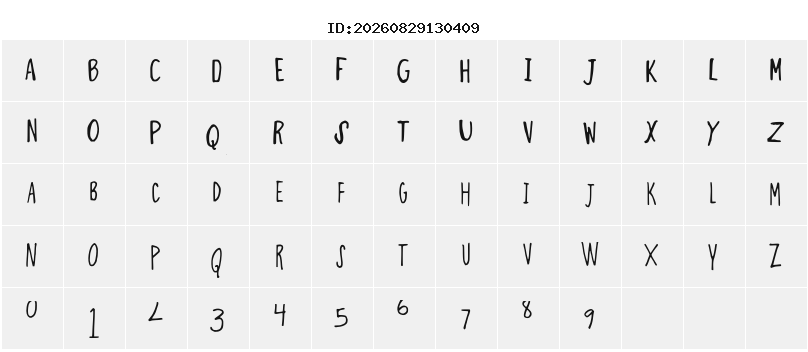
ThinMinty Preview
About ThinMinty.otf
ThinMinty.otf is a modern, elegant sans-serif font designed for ultimate readability and visual harmony. Perfect for branding, headlines, web design, and print materials.